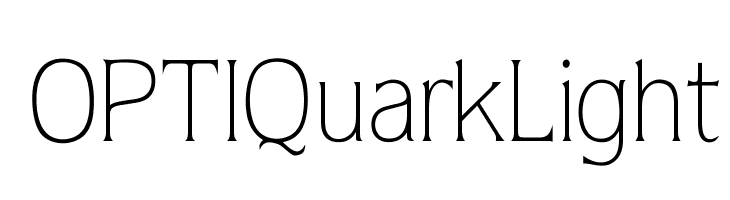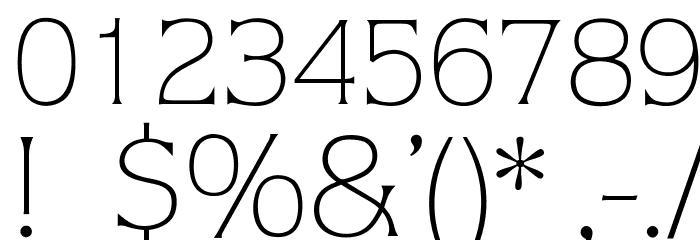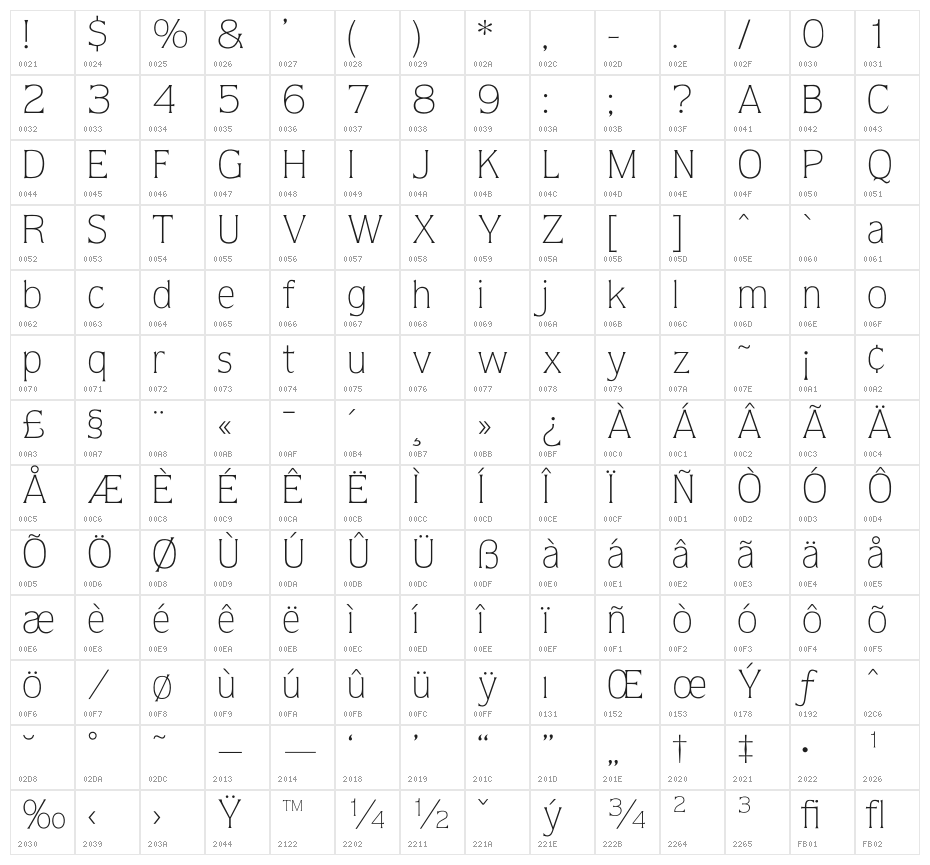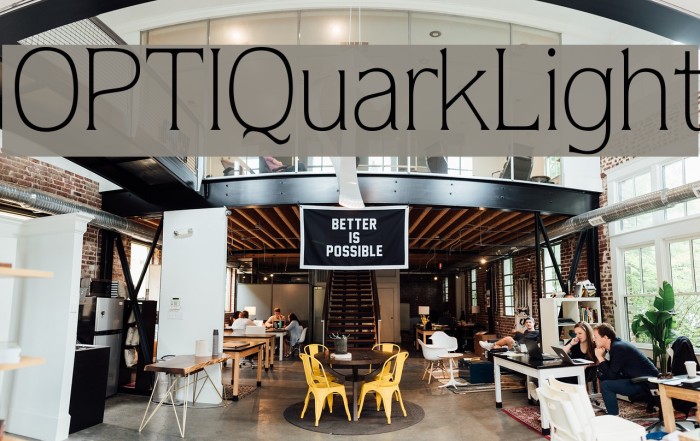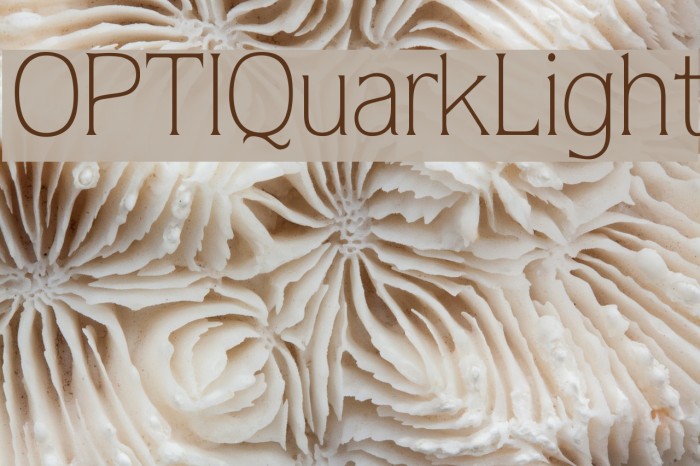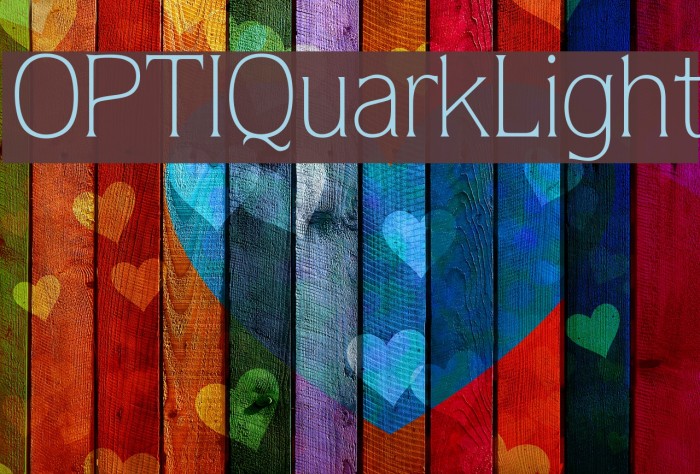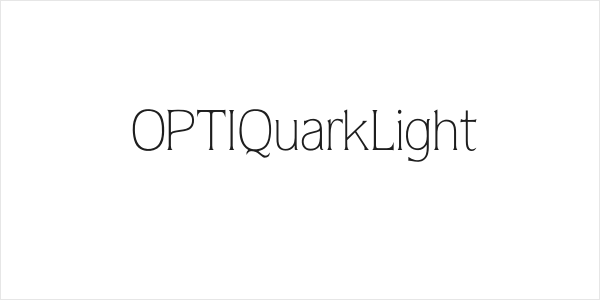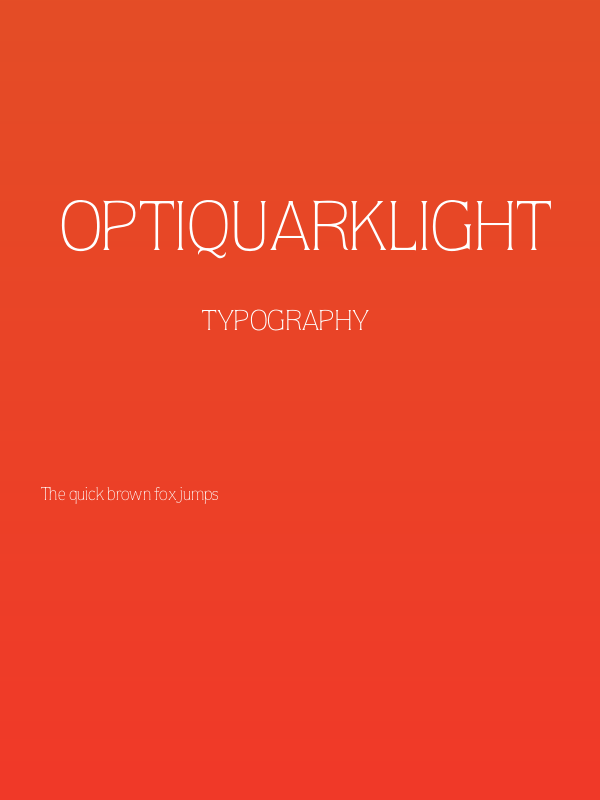
OPTIQuarkLight Font
OPTIQuarkLight Description
This font features a clean and modern design with a light and airy feel. The characters are elegantly crafted with a consistent stroke width, giving it a refined and sophisticated appearance. The uppercase letters are tall and slender, while the lowercase letters maintain a balanced and harmonious look. The numerals are clear and easy to read, making them suitable for various applications. Special characters are included, adding versatility to the font's use. The overall design is minimalistic, making it ideal for projects that require a contemporary and sleek aesthetic.
| Proposed Projects | Ideal for branding, editorial design, websites, and advertising materials. |